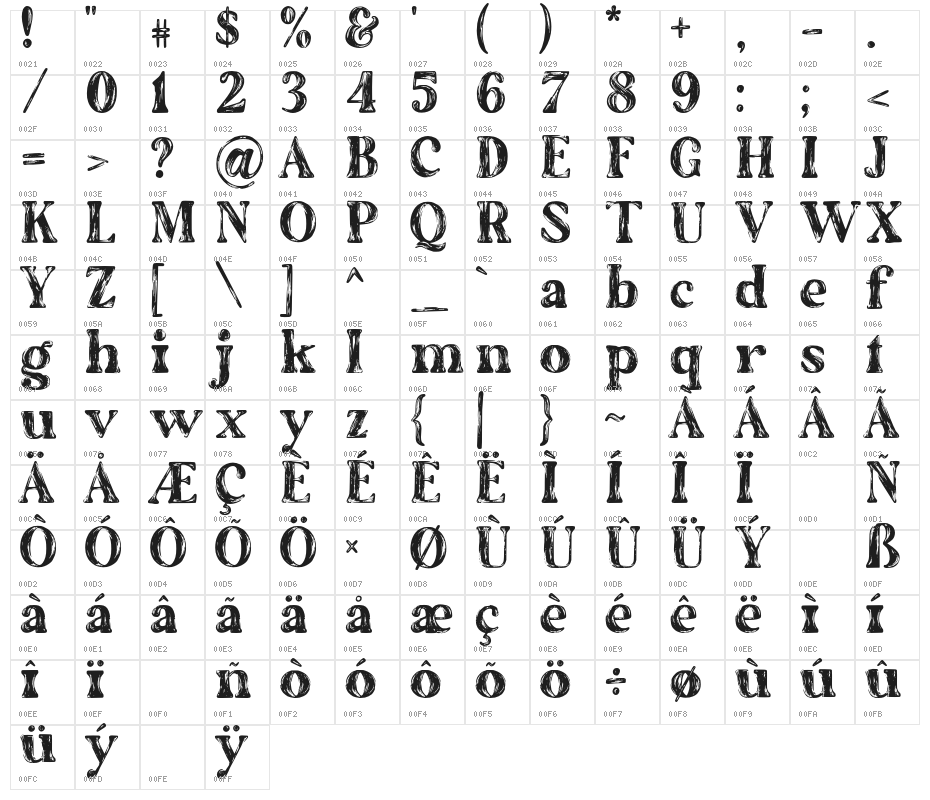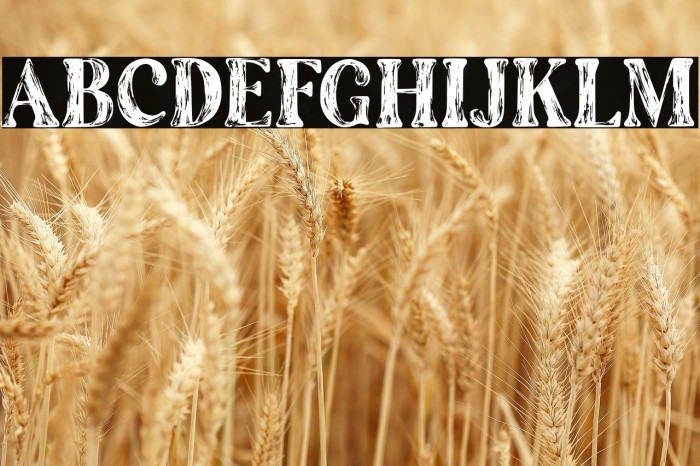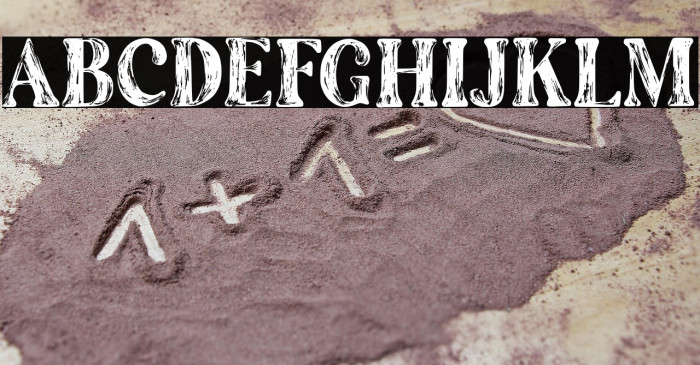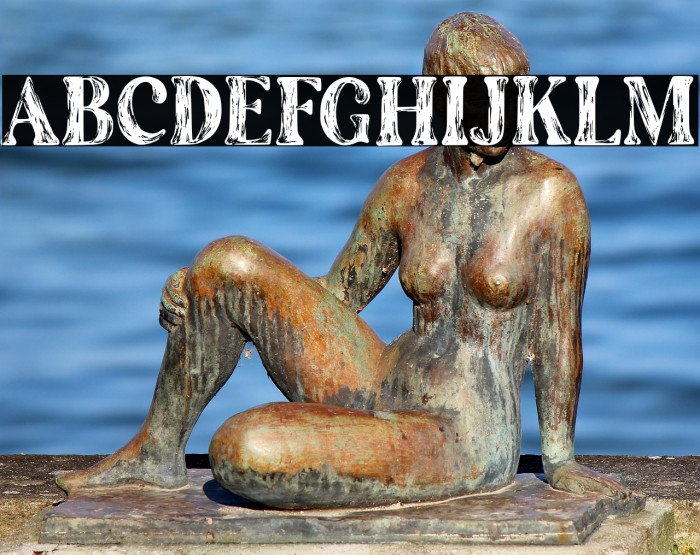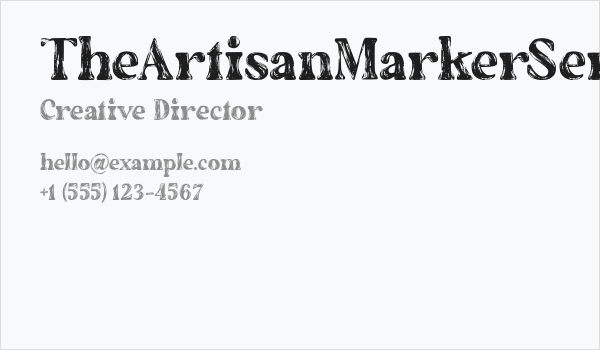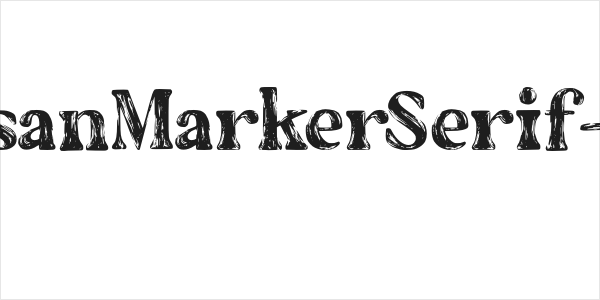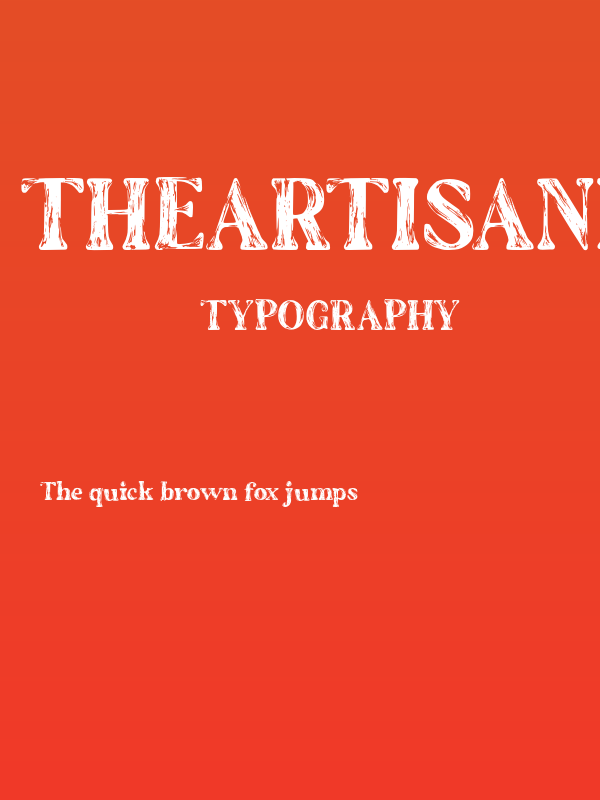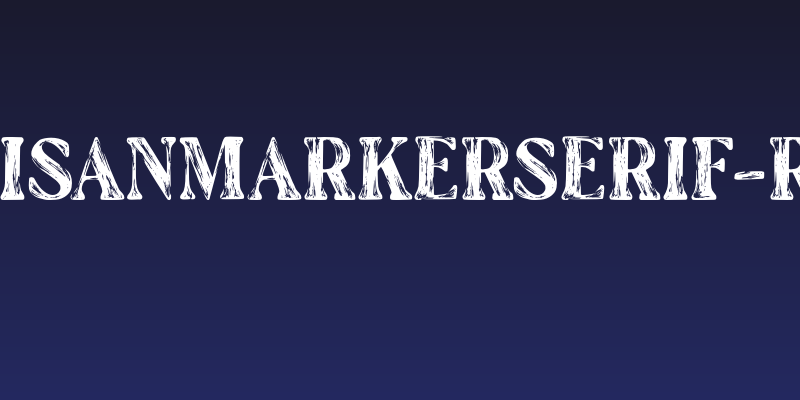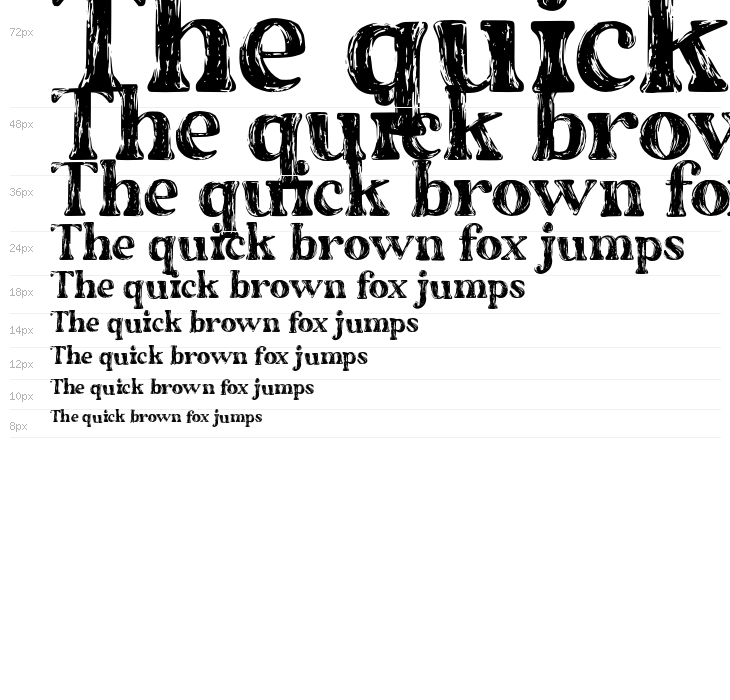
TheArtisanMarkerSerif-Regular Font
TheArtisanMarkerSerif-Regular Description
This font features a distinctive hand-drawn style with a textured, marker-like appearance. Each character is bold and expressive, with a slightly rough edge that gives it a handcrafted feel. The uppercase and lowercase letters maintain a consistent style, with a playful yet sophisticated look. The numbers and special characters are equally detailed, ensuring a cohesive design across all elements. The font's unique texture and bold presence make it ideal for creative projects that require a touch of artistry and individuality.
| Proposed Projects | Ideal for artistic projects, branding, posters, and any design requiring a handcrafted touch. |